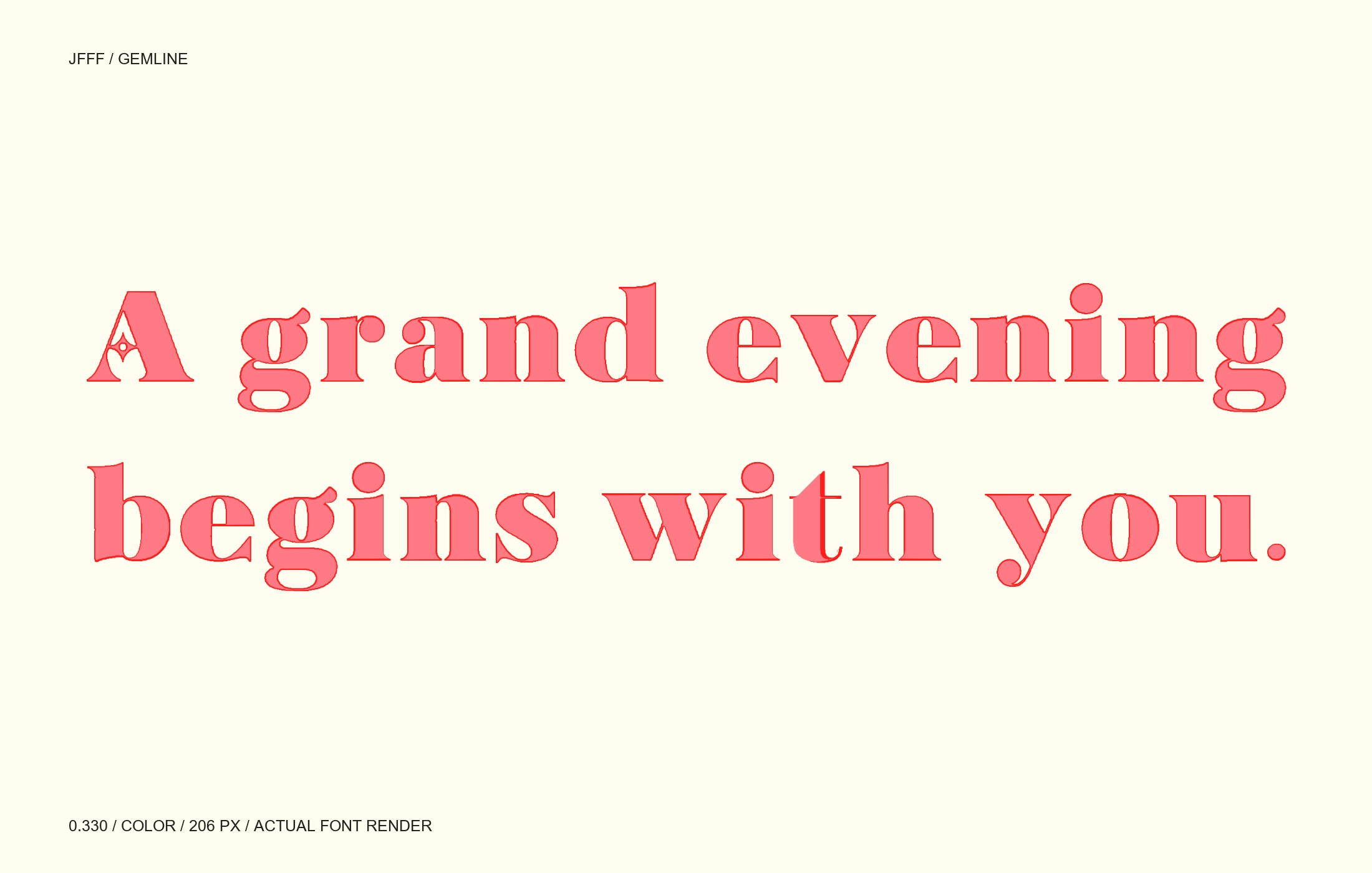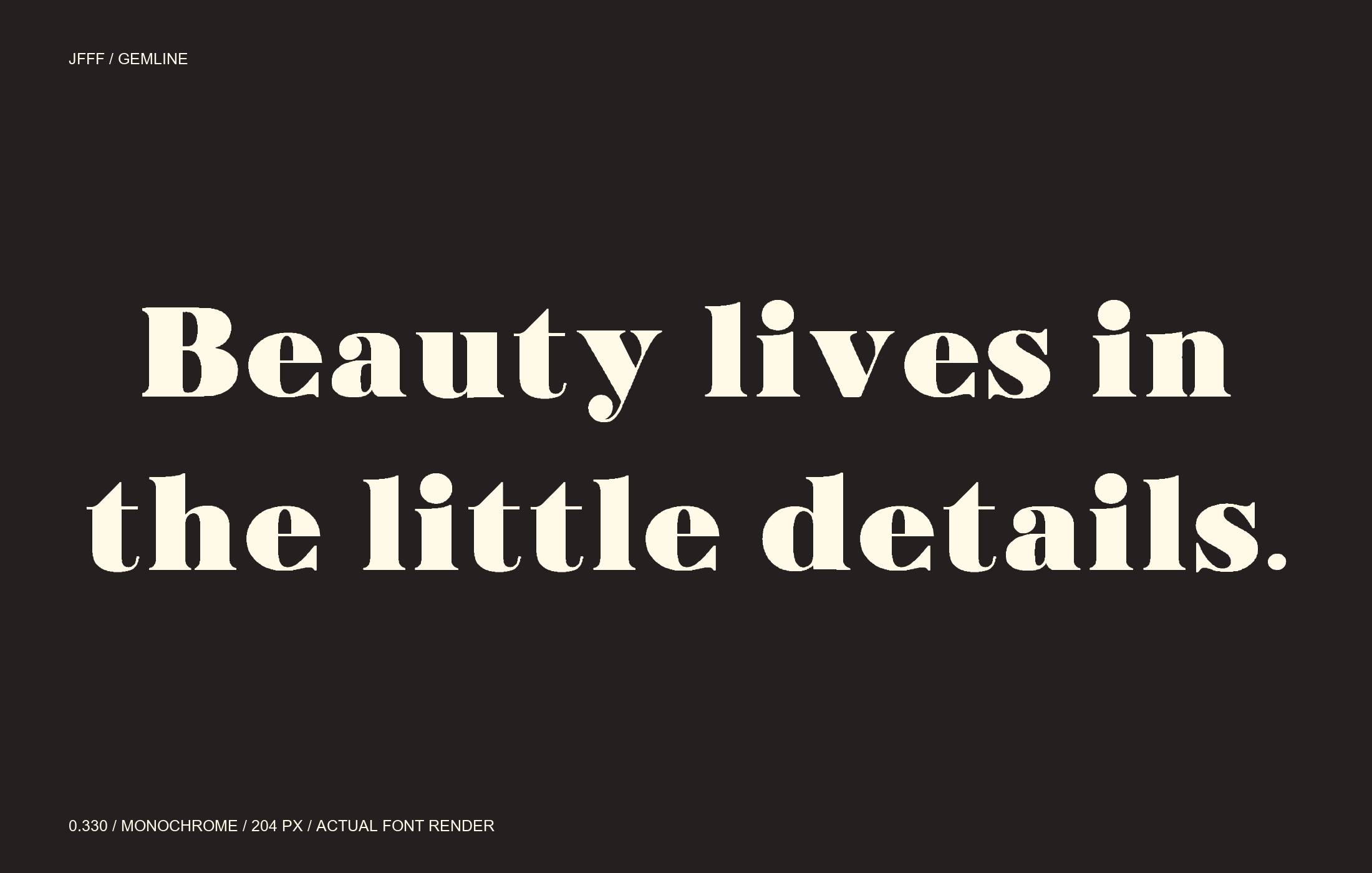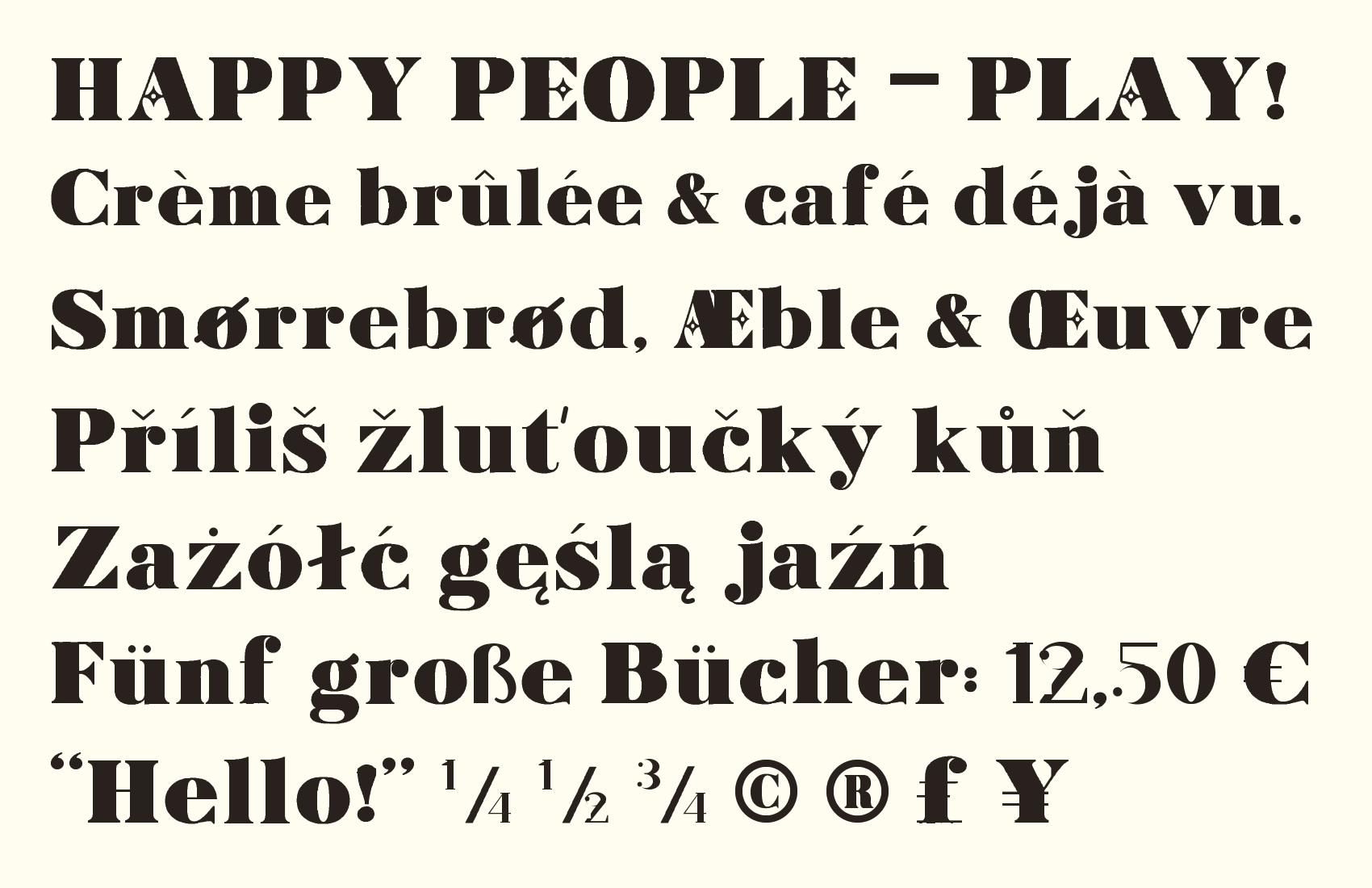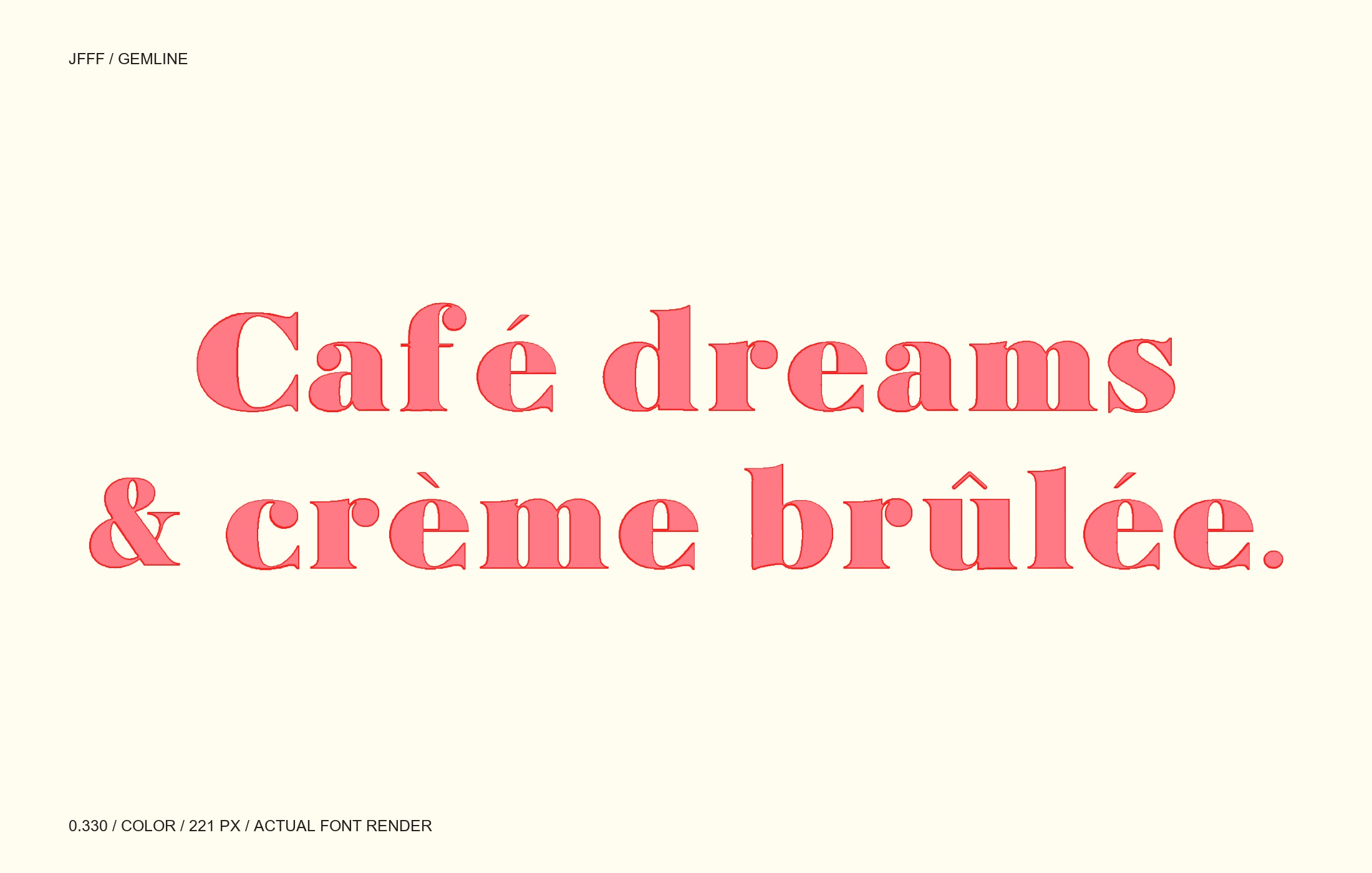
Free elegant serif font
JFFF · Serif
Gemline is a high-contrast decorative serif with fine hairlines, narrow oval counters, ball terminals and jewel-like A/E ornaments. Design Preview 0.330 includes 330 encoded characters per style: capitals, lowercase, numbers, punctuation and extended Latin. Download includes monochrome and red/pink COLR color TTF and WOFF2 files, free for personal and commercial use under SIL OFL 1.1. Intended for large editorial headlines, covers and packaging at 64 px or above. The live tester uses the monochrome font; color artwork uses the included color font. Color support varies by app. Native editing-app installation and language-native editorial checks are pending. Use precomposed NFC accented text; no Hangul or combining marks. Reference-derived design preview.